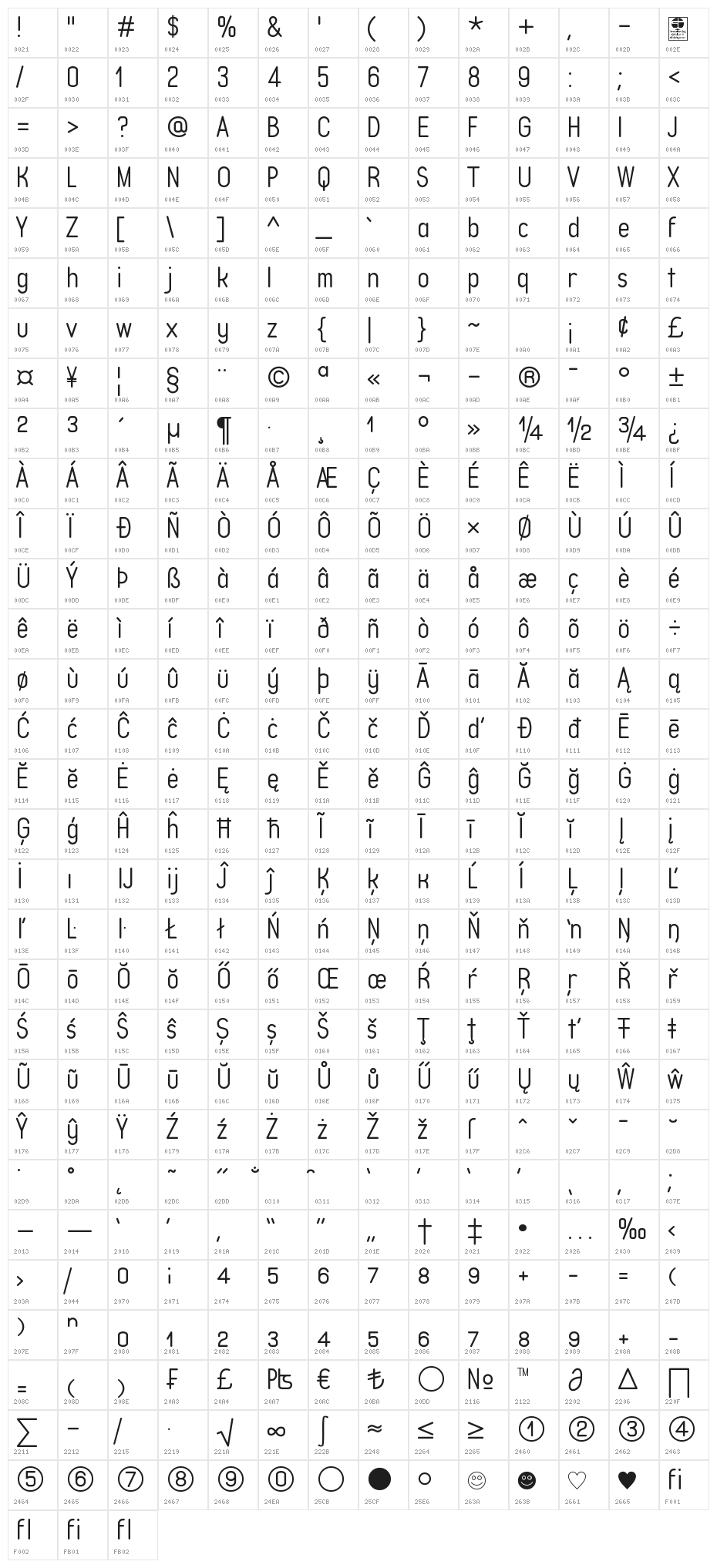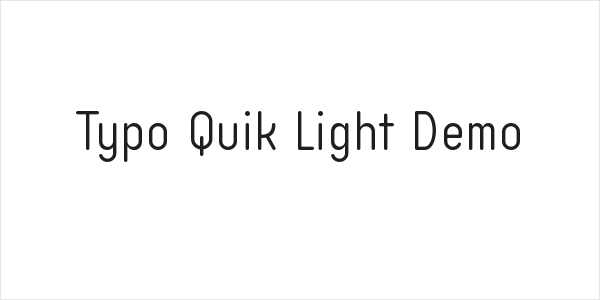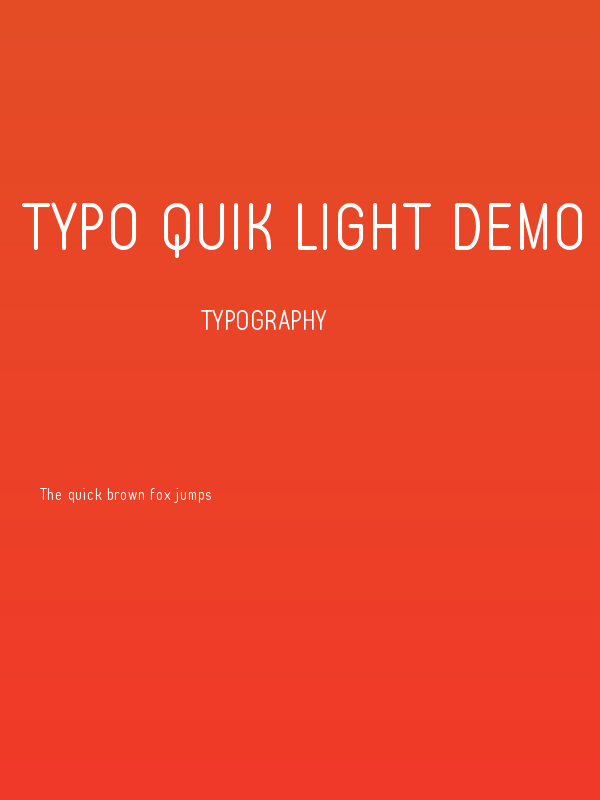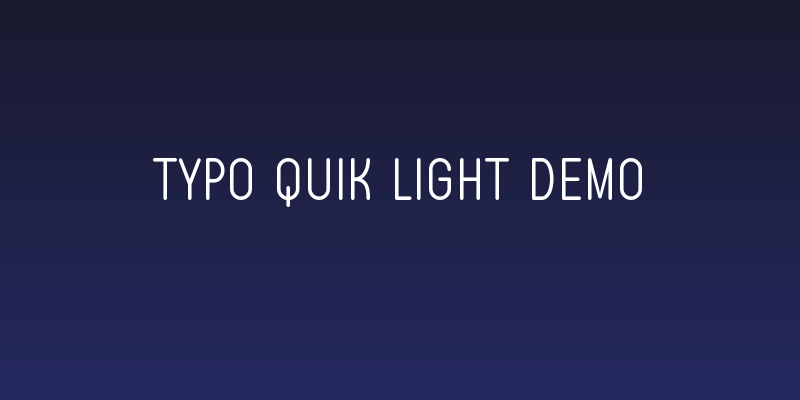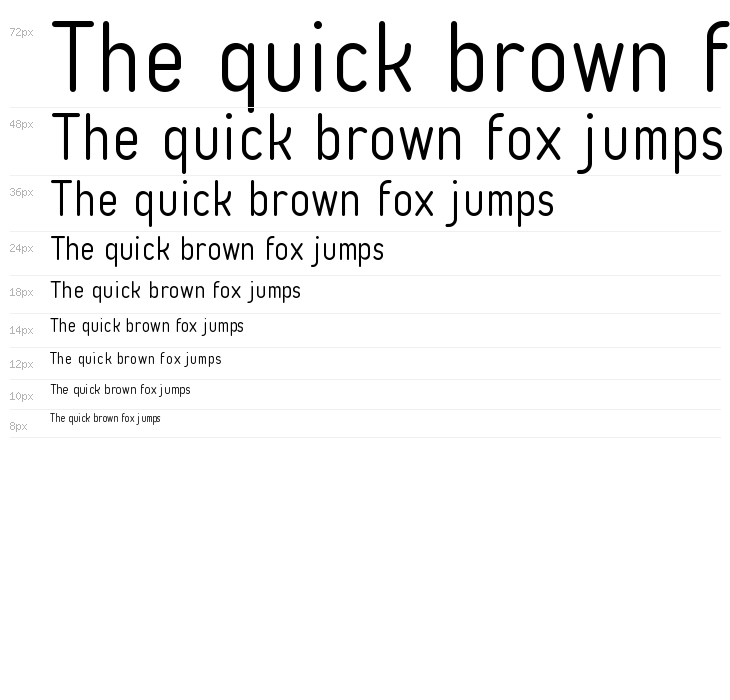
Typo Quik Light Demo Font
Typo Quik Light Demo Description
This font features a clean and modern sans-serif design with a light weight, offering a sleek and minimalist appearance. The characters are evenly spaced with a slightly rounded edge, providing a friendly and approachable look. The uppercase and lowercase letters maintain a consistent height, while the numerals are clear and easy to read. The special characters are well-defined, making this font versatile for various applications. Its simplicity and clarity make it suitable for both digital and print media, ensuring readability across different sizes.